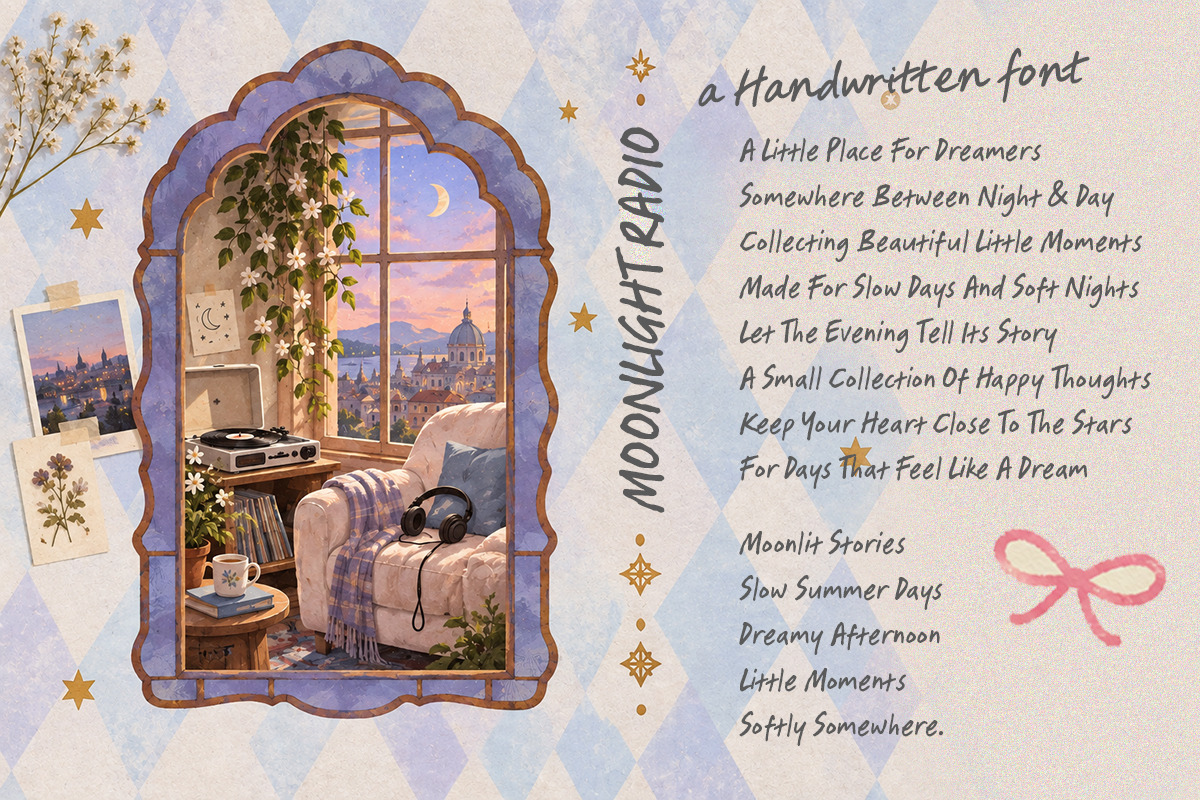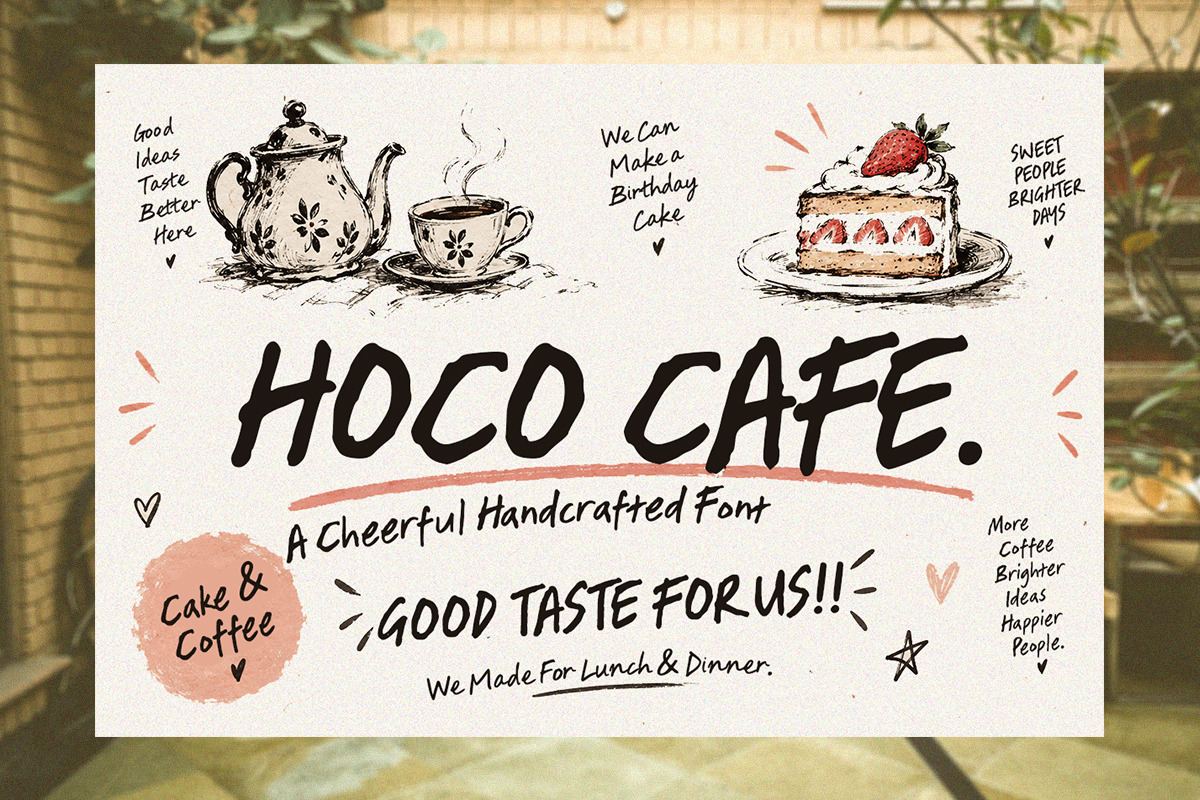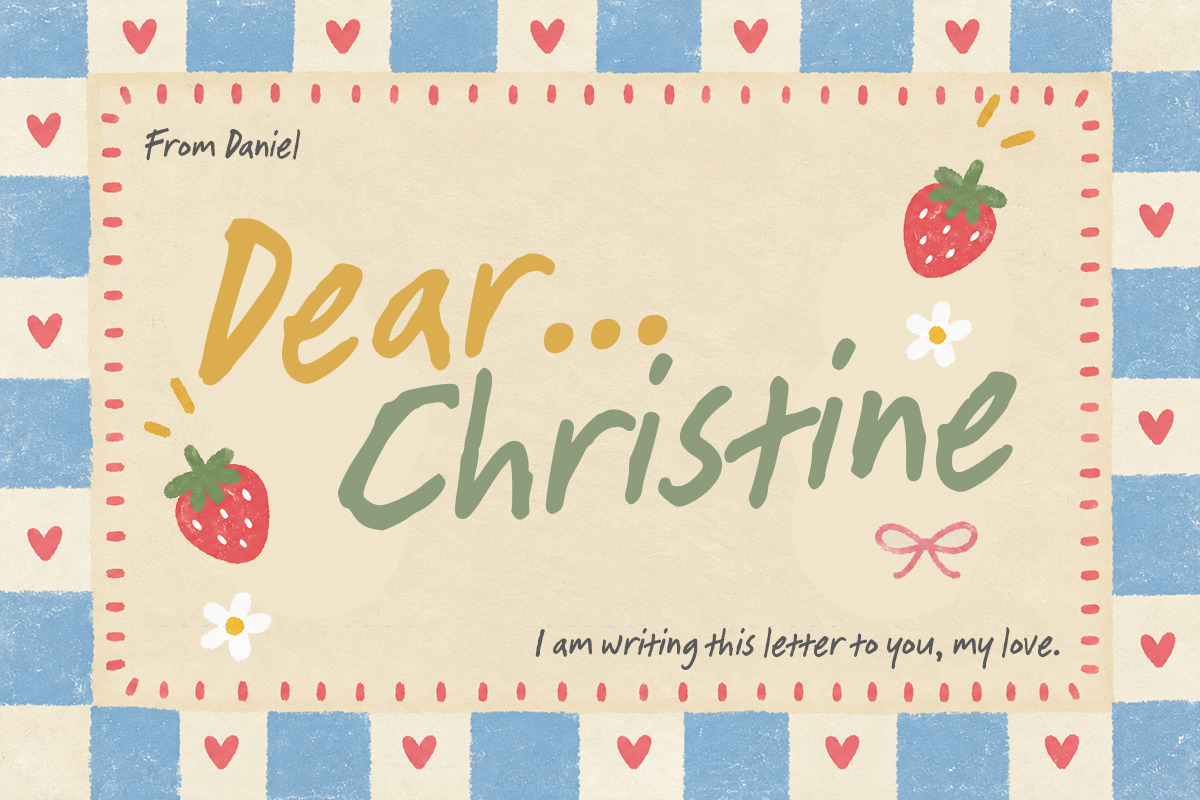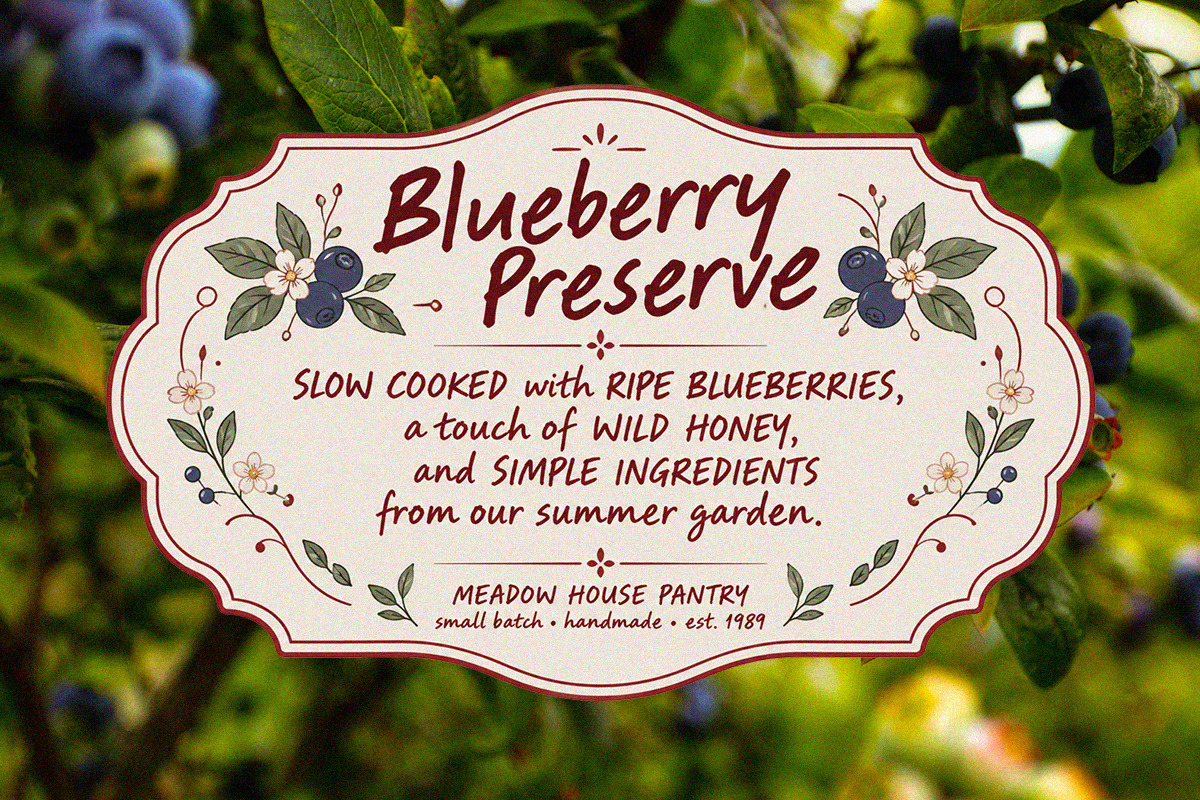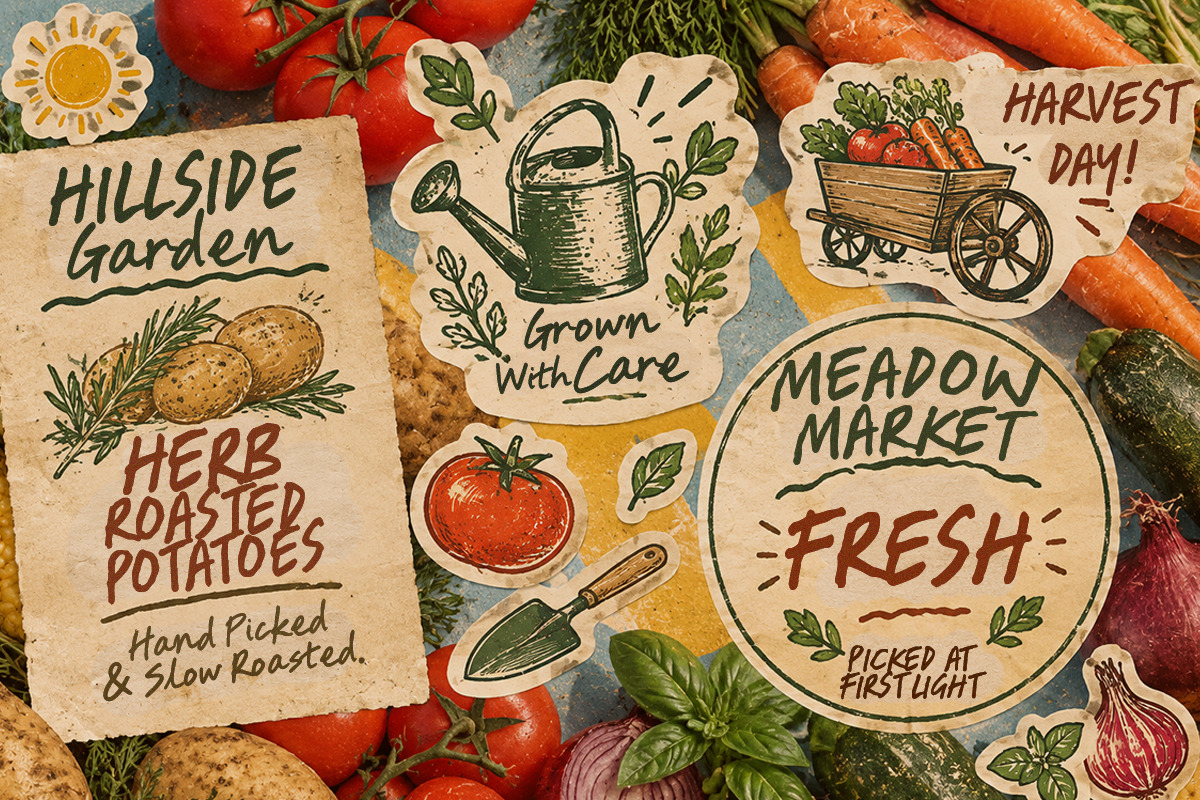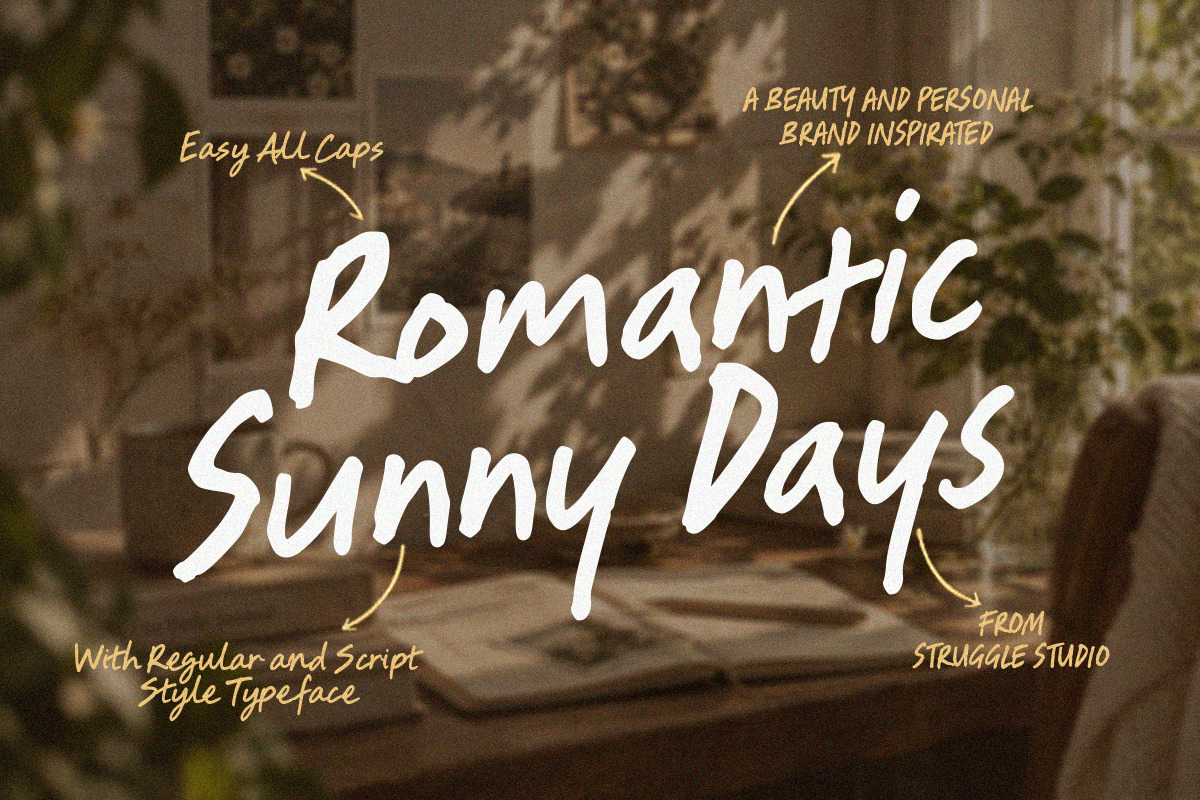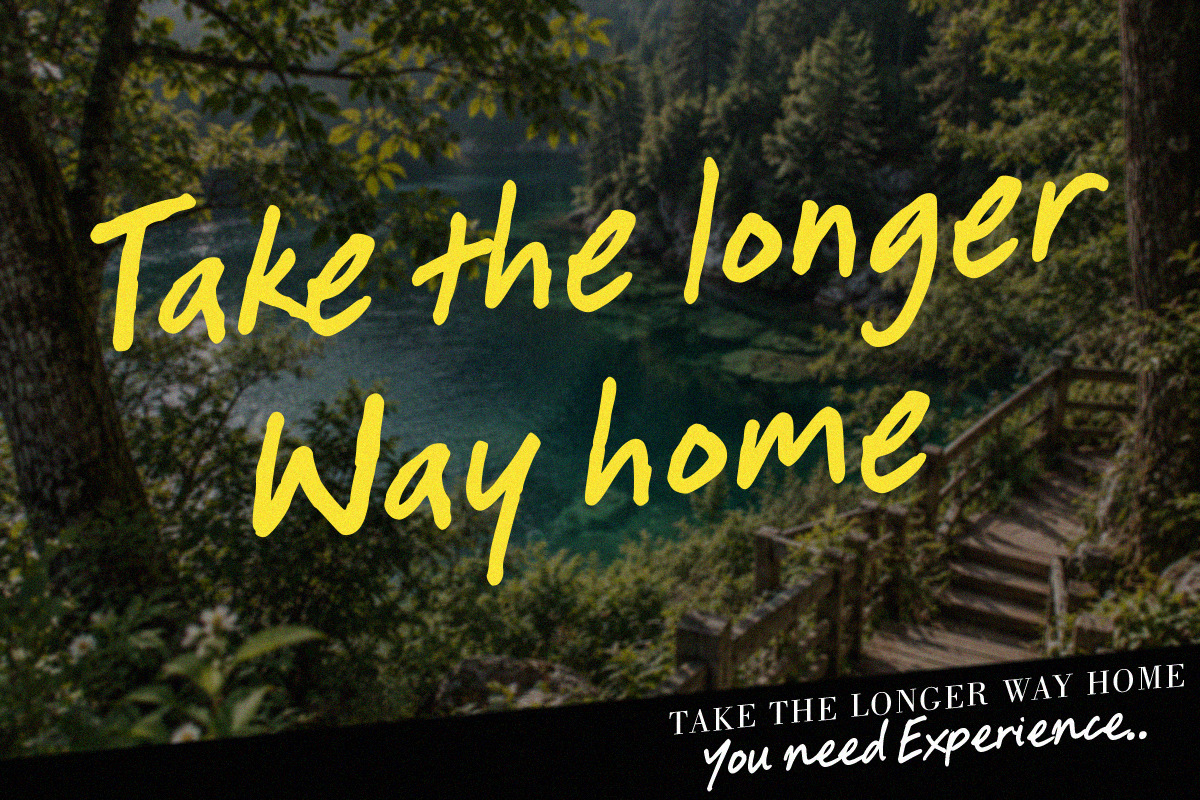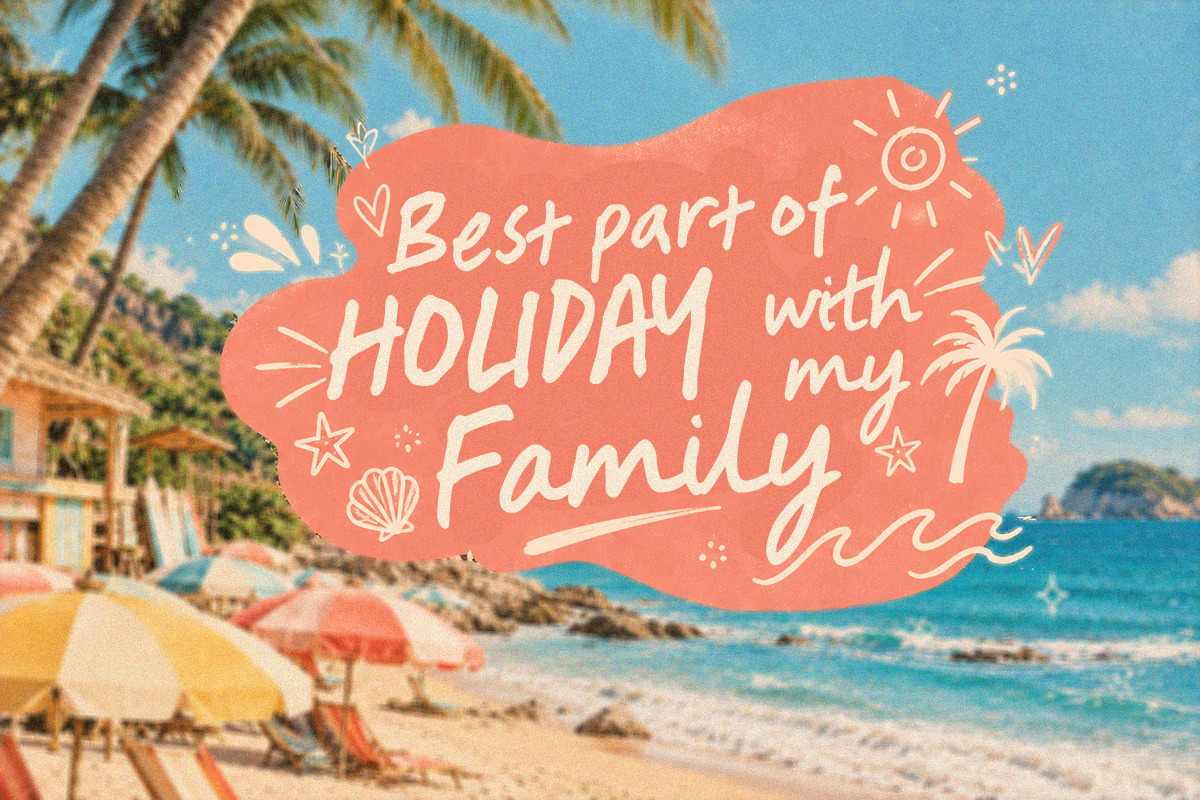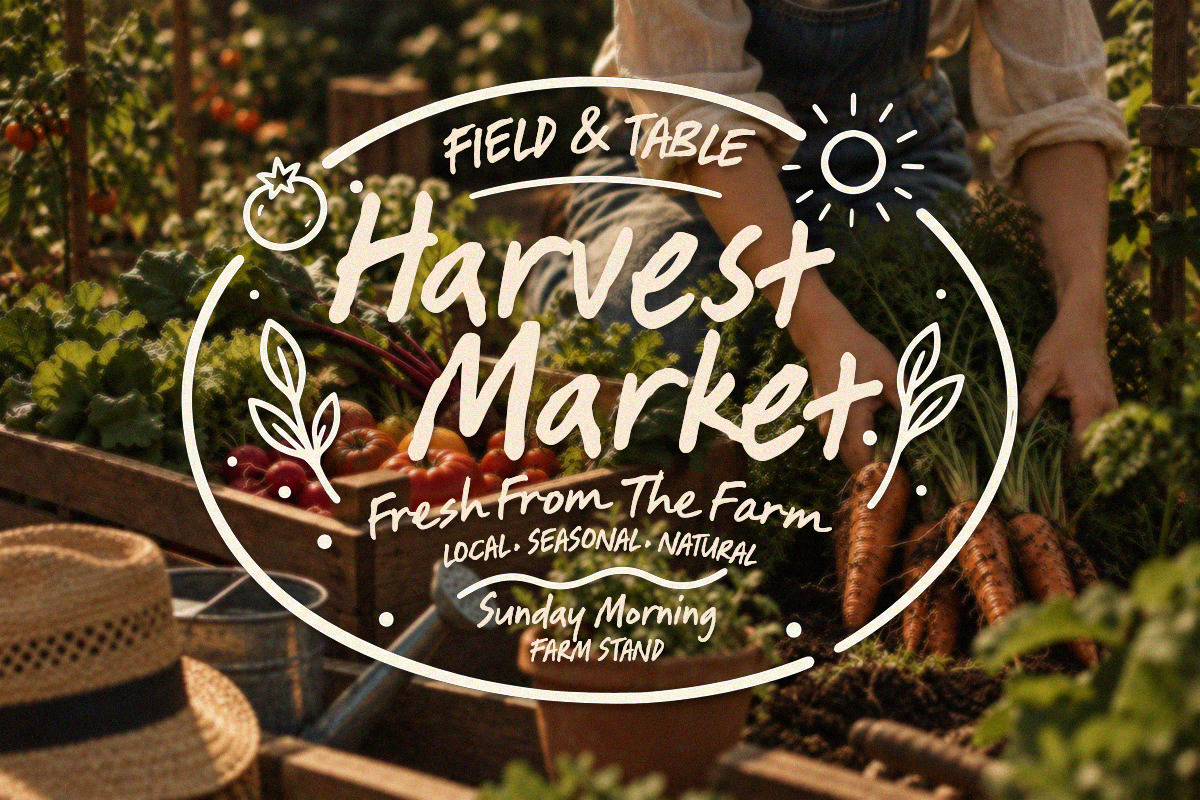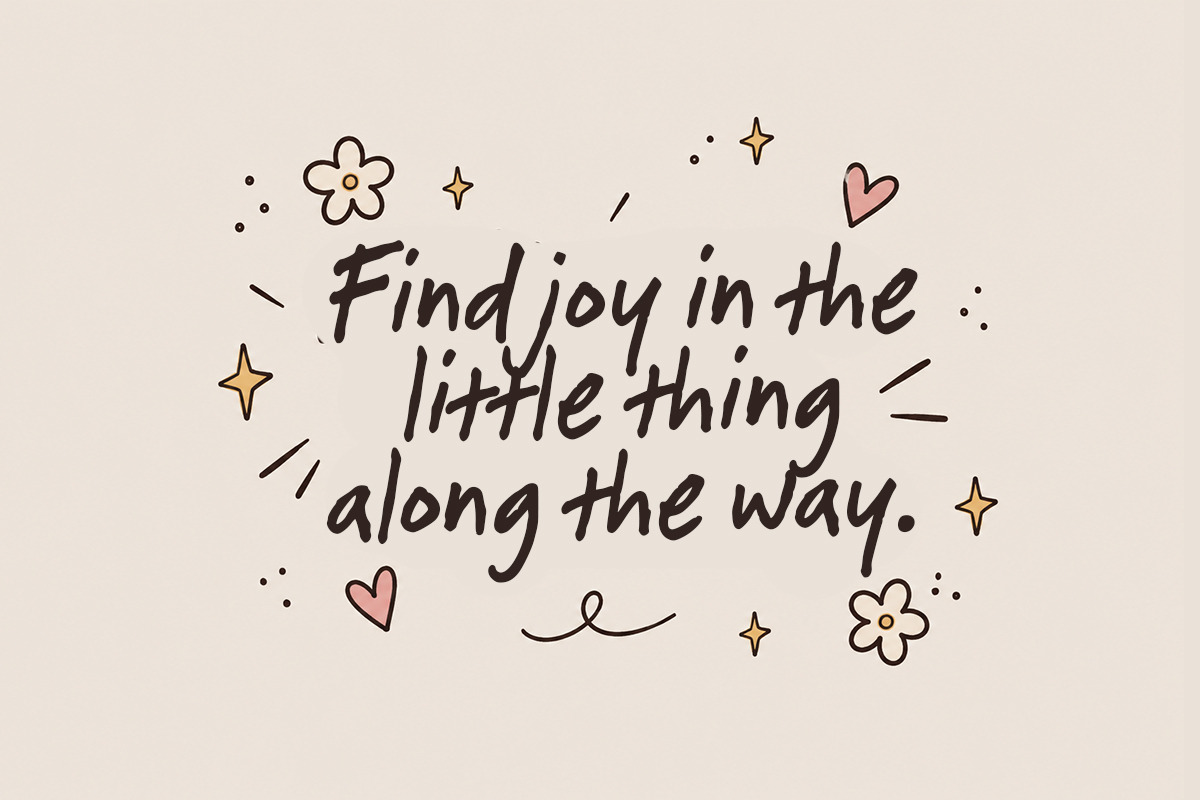
Romantic Sunny Days // Font Duo
Romantic Sunny Days is a beautifully crafted handwritten script typeface designed to capture the cozy, warm, and effortless vibes of a sunlit afternoon. Created by Struggle Studio, this font combines a natural hand-painted texture with a smooth, modern flow.
Whether you're designing for a luxury beauty brand, crafting aesthetic quote cards, or launching a personal lifestyle project, Romantic Sunny Days provides the perfect balance of chic romance and laid-back elegance.
Dual Style Versatility: Comes with both Regular and Script typeface options to give you complete creative freedom.
Easy All Caps: Effortlessly switch to all-caps for clean, striking headlines and subheadings.
Authentic Texture: Detailed brush edges for a true, handcrafted feel.
Ideal For:
Beauty & Skincare Branding
Personal Branding & Logos
Social Media Content & Quotes
Product Packaging & Labels
Wedding Invitations & Greeting Cards
Magazine Layouts & Editorial Design
Romantic Sunny Days Regular
Romantic Sunny Days Script
Add a gentle, romantic touch to your next design project with Romantic Sunny Days!